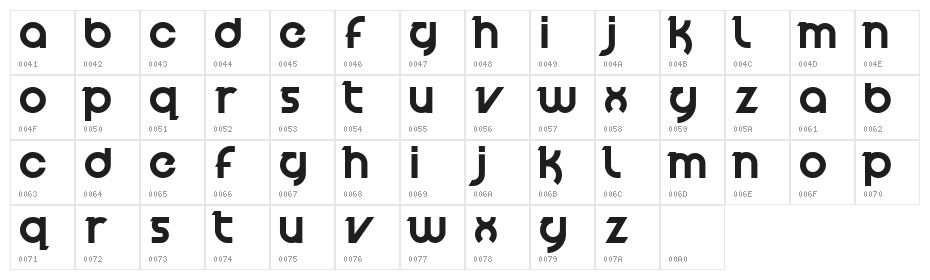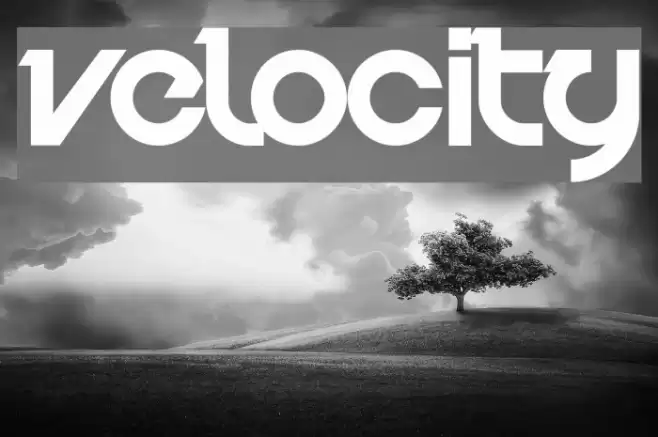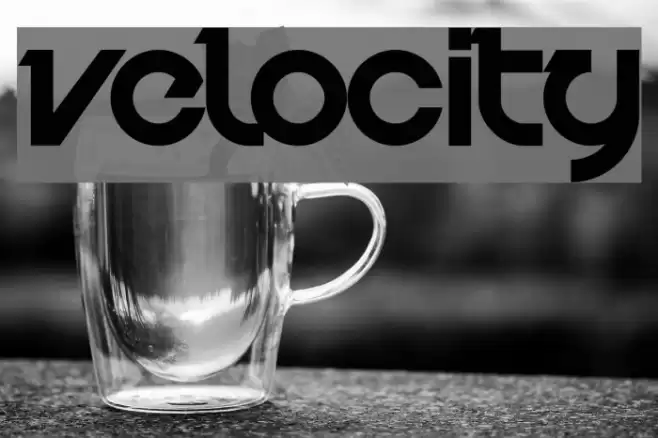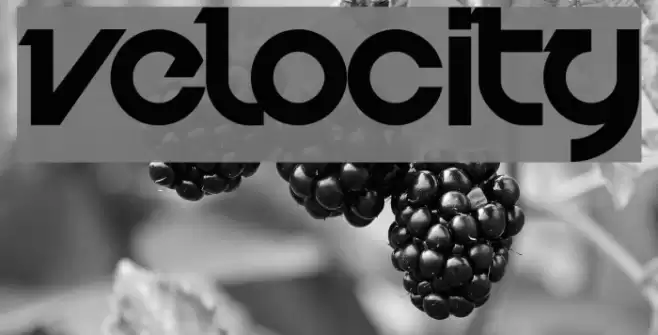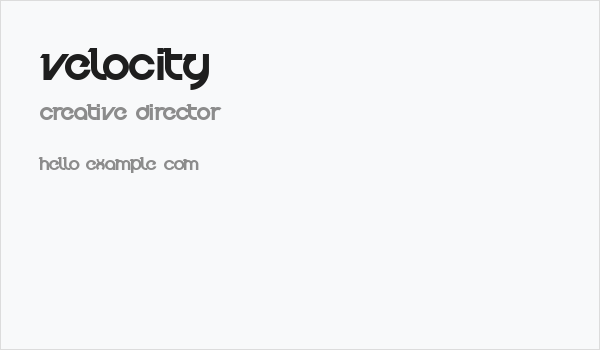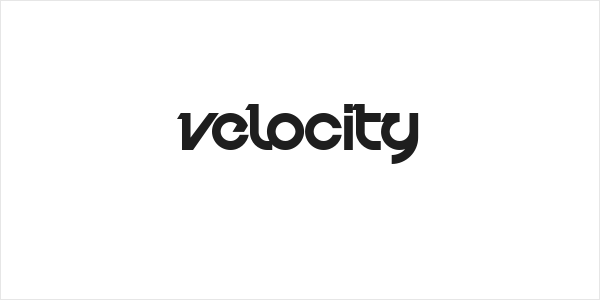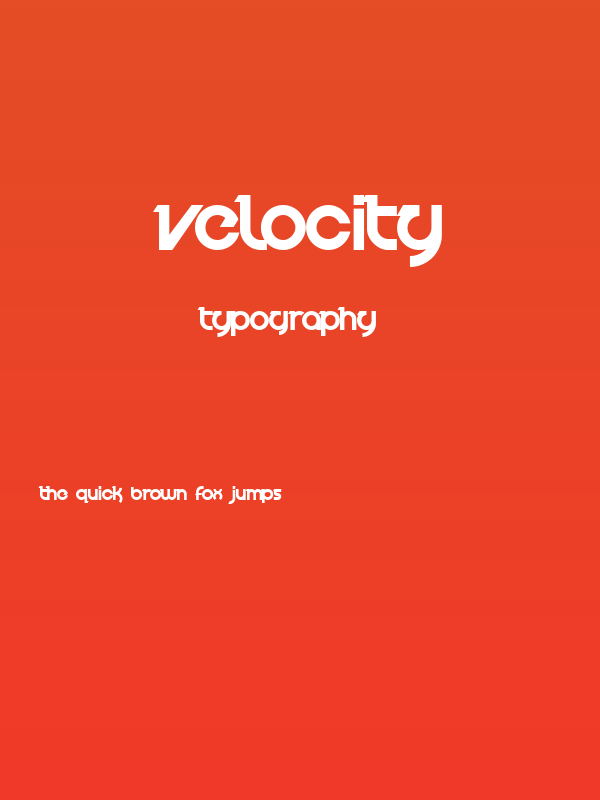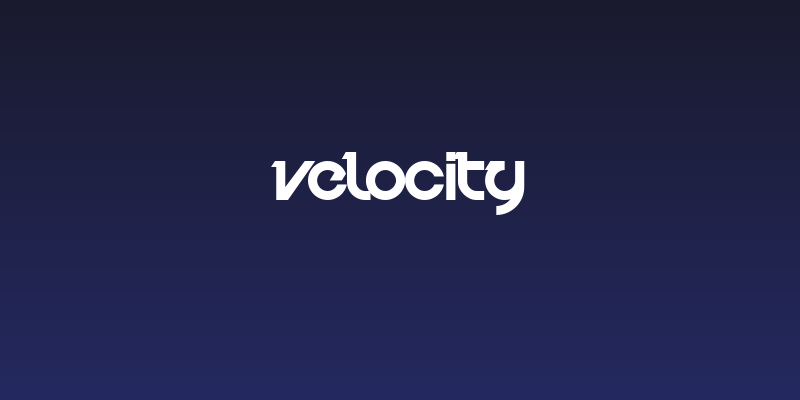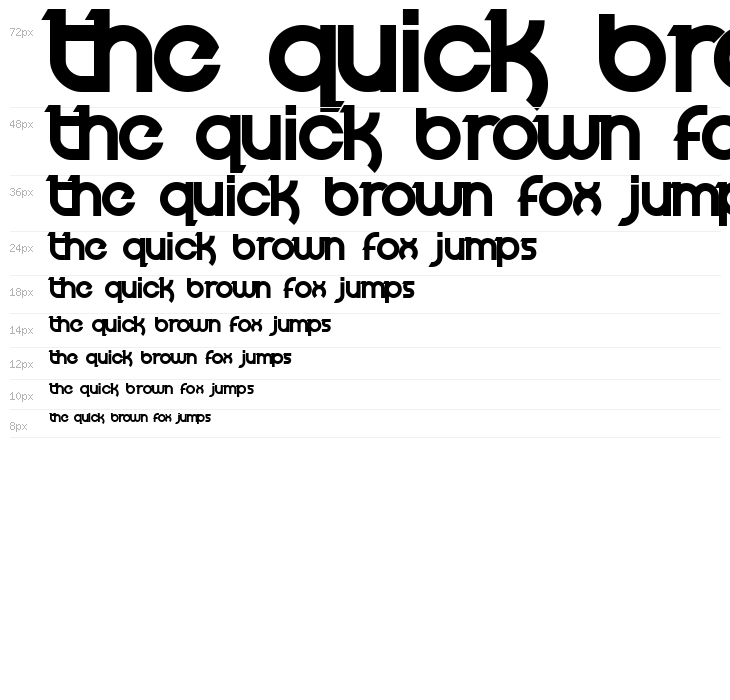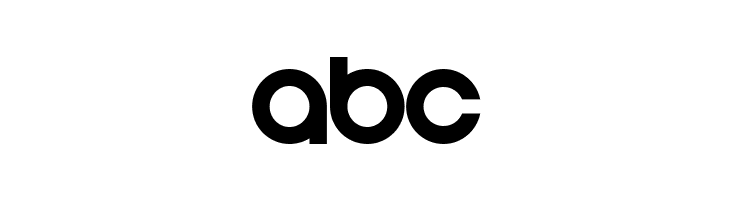
Velocity Font
Velocity Description
This font features a bold and geometric design with a modern flair. The characters are constructed with thick strokes and sharp angles, giving it a futuristic and dynamic appearance. The letterforms are consistent in height and width, creating a uniform and cohesive look. The rounded edges of some characters add a touch of softness, balancing the overall sharpness. This font is highly legible and stands out due to its unique style, making it suitable for attention-grabbing designs.
| Proposed Projects | Ideal for branding, headlines, posters, and digital media where a modern and bold statement is needed. |